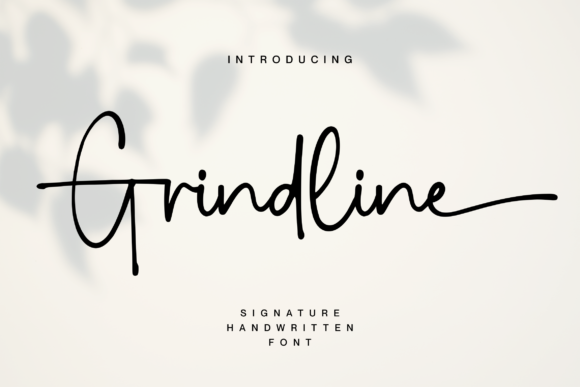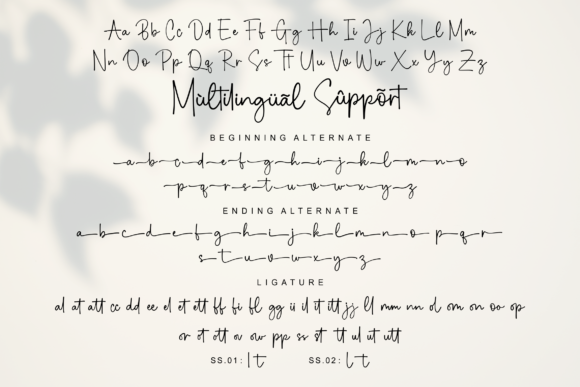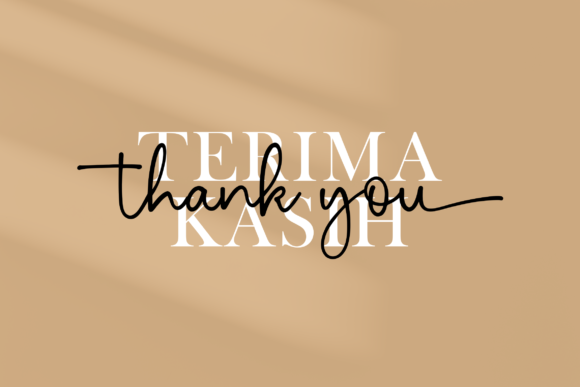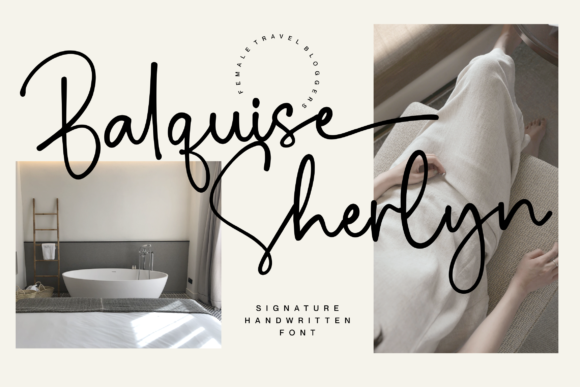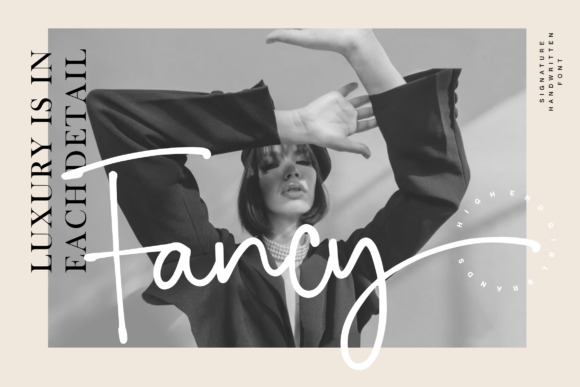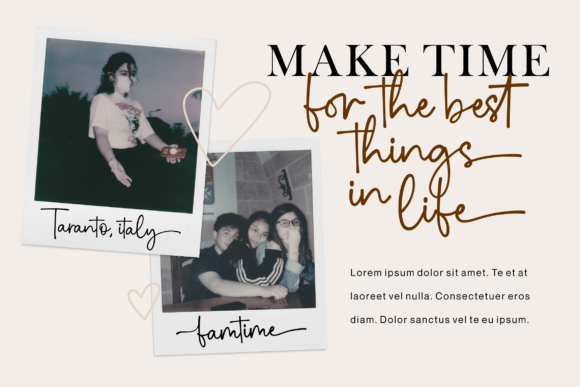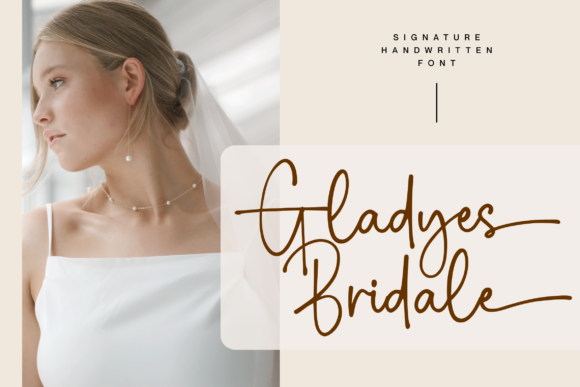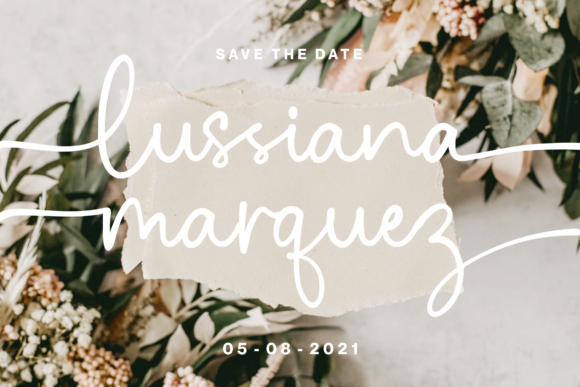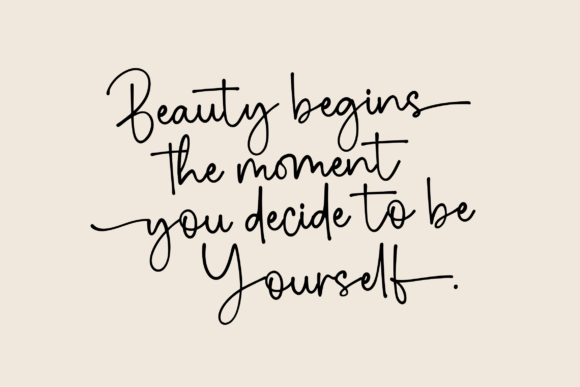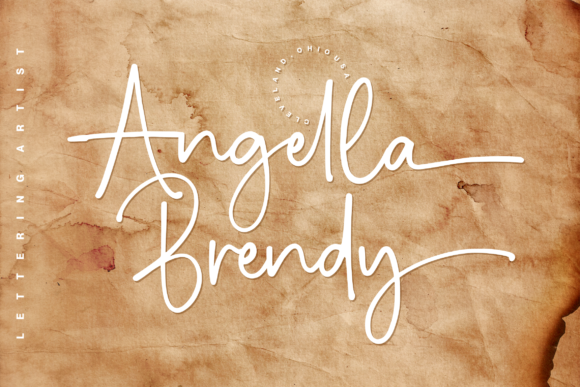
Grindline Font
About Grindline Font
Grindline is a lovely script font featuring charming, playful characters that seem to dance along the baseline. Add this font to your most creative ideas, and notice how it makes them stand out! Grindline is PUA encoded which means you can access all of the glyphs and swashes with ease!